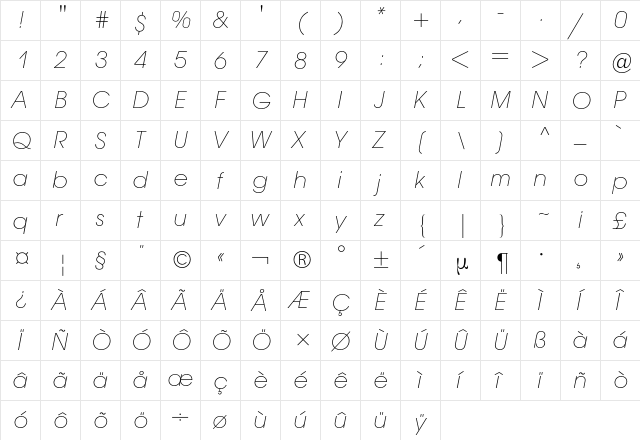
Avant Garde BQ Regular
Design Context for Avant Garde BQ Typeface
Avant Garde BQ is a composed and adaptable typeface that performs quietly and consistently across a wide range of design contexts.